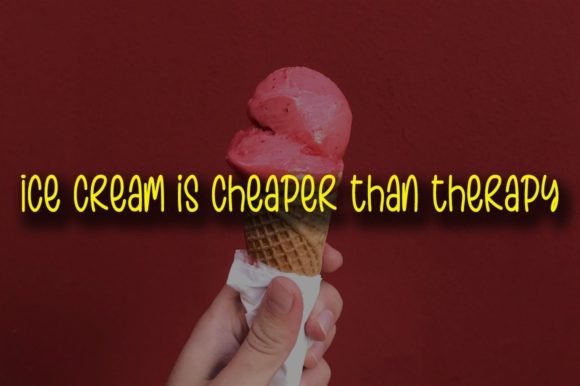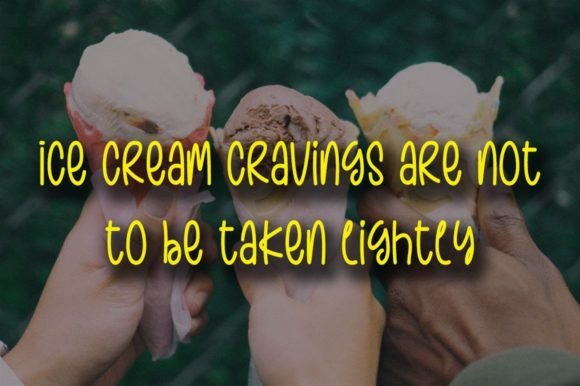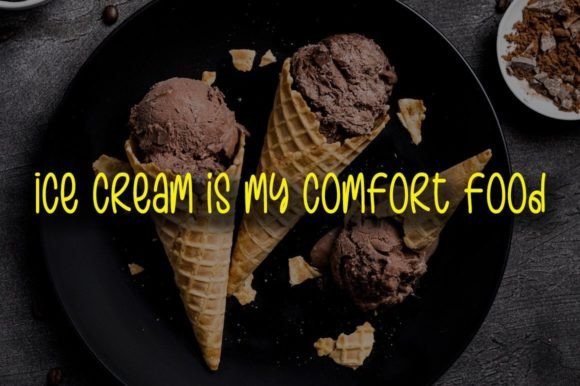
The Sweetest Touch to Your Designs: Introducing the Ice Cream Font
Who hasn’t ever sat down with a cup of coffee, a blank sheet of paper, and a pencil, and let their creativity run wild? The scribbles, the scratches, the imperfect lines – they all come together to create something truly unique. It’s in these moments that we find inspiration, and for designers, the right tools can make all the difference. That’s why we’re excited to introduce the Ice Cream Font, a new handwritten font designed to bring a touch of personality to your designs.
The Ice Cream Font is perfect for writing, designing, sending invitations, or letters – any situation where a little extra flair is needed. With its hand-drawn touches and subtle imperfections, it’s sure to add a unique charm to your work. And for designers, it’s a valuable addition to their toolkit, offering endless possibilities for creative expression.
Key Features of “Ice Cream Font”
- Unique Characteristics: The “Ice Cream Font” features a unique, hand-drawn design with playful and whimsical elements, making it perfect for creating eye-catching and fun designs.
- Font Style: The font comes in a single style, with a mix of uppercase and lowercase letters, as well as numbers and punctuation marks.
Ice Cream Font Review
Overall, I think the “Ice Cream Font” is a cute and playful font that can be used for various designs, especially for children’s products or desserts-related branding. ✨ Its rounded edges and smooth lines give it a friendly and approachable feel that can help convey a sense of fun and indulgence.
One of the things that works well about this font is its versatility. ✨ It can be used for a wide range of applications, from headings to body text, and even for logos or titles. Additionally, the font comes in various weights and styles, making it easy to find the perfect combination for your design.
What Doesn’t Work
While the “Ice Cream Font” has its charm, there are some limitations to consider: ⚠️ For one, the font may not be the best choice for formal or professional designs, as its playful nature may not be taken seriously. Additionally, the font may not be as readable at small sizes or in certain contexts, such as on mobile devices.
Limits of Use
- May not be suitable for formal or professional designs
- May not be readable at small sizes or on mobile devices
- May not be the best choice for complex or technical content
Conclusion
Overall, I would give the “Ice Cream Font” 3.5 out of 5 stars. While it’s a cute and versatile font, its limitations may make it less suitable for certain designs or applications. However, for the right project, it can be a great choice for adding a playful touch and conveying a sense of fun and indulgence.
Tips for Getting the Most Out of Ice Cream Font
Some tips to keep in mind when using the Ice Cream Font include:
– Use it for playful and whimsical designs.
– Pair it with bright and bold colors to create a fun and eye-catching look.
– Experiment with different font sizes and styles to add depth and interest to your design.
Common Use Cases for Ice Cream Font
The Ice Cream Font is commonly used for:
– Children’s party invitations and decorations
– Food and dessert branding
– Whimsical and playful advertising campaigns